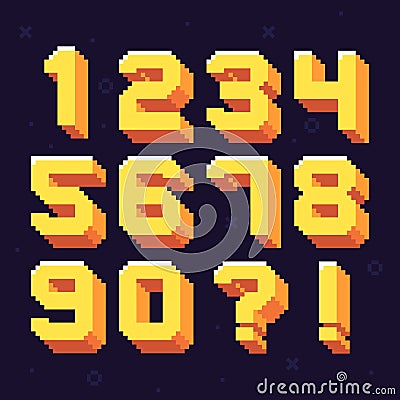
Pixel Numbers. Retro 8 Bit Pixels Number Font Vector Illustration Set
Pixel numbers. Retro 8 bit pixels number font. Oldschool games pixels numbers, arcade video gaming 80s vector illustration symbols set